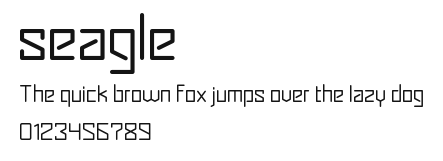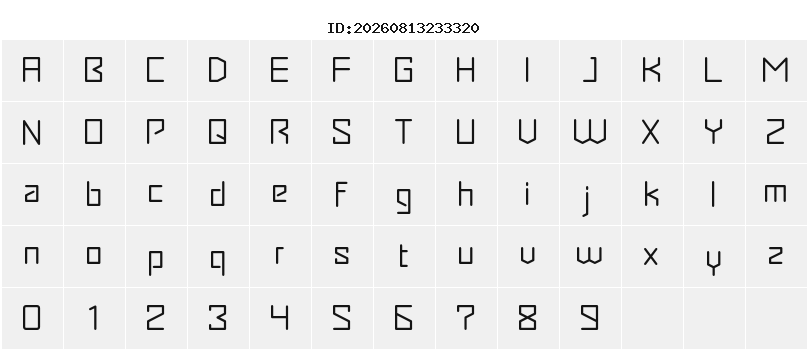
seagle Preview
• Font Name: seagle
• Full Font Name: seagle
• PostScript Name: seagle
• Designer: Nestor Delgado
• Manufacturer: Néstor Delgado
About seagle.otf
seagle.otf is a modern, elegant sans-serif font designed for ultimate readability and visual harmony. Perfect for branding, headlines, web design, and print materials.